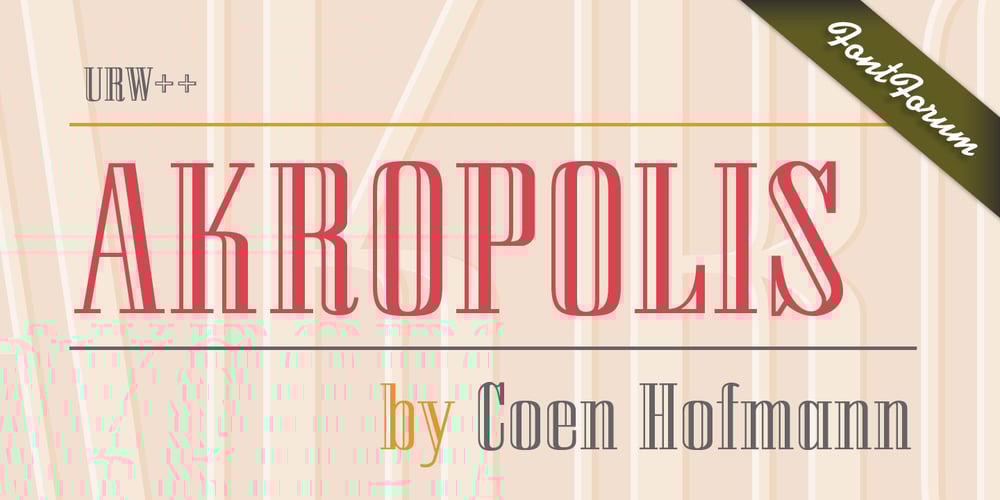
URW Akropolis Font Family was designed by Coen Hofmann and published by URW Type Foundry. URW Akropolis contains 1 styles and family package options. The design of this display face is based on the hot metal typeface Acropolis, issued by the German type foundry Ludwig Wagner in Leipzig in 1940. To further increase its usefulness a Cyrillic was added to it: URW Akropolis, redrawn and digitally remastered by Coen Hofmann for the URW Font Forum, is a true display design that should not be set below 48 point if you want to preserve it’s fine details like the open triangular sections, e.g. in L, G, S, T etc. and gain the full typographic splendidness of this beautiful typeface.